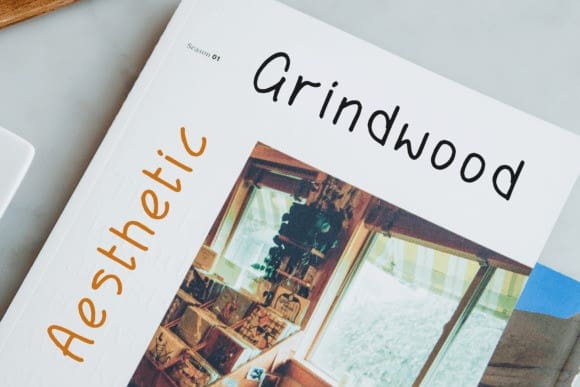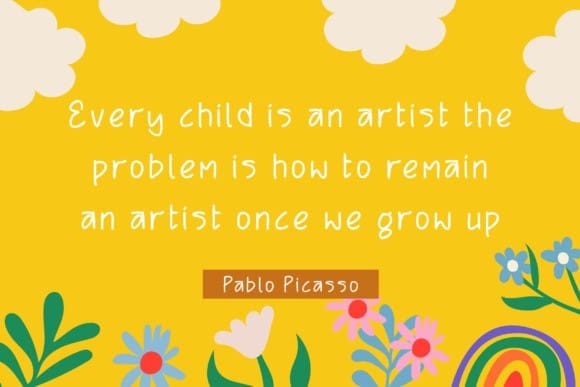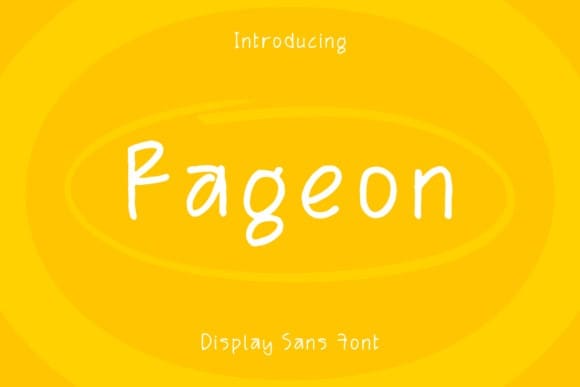
Rageon Font
Rageon Font is a modern and assertive script font. No matter the topic, this font will be an incredible asset to your fonts’ library, as it has the potential to elevate any creation.